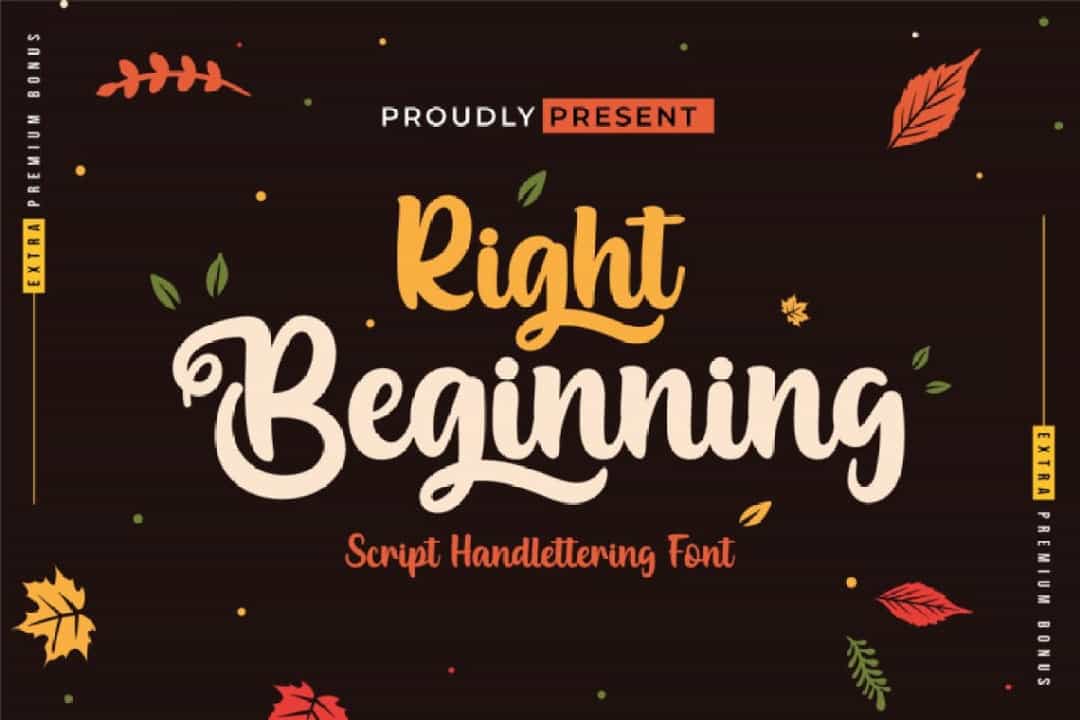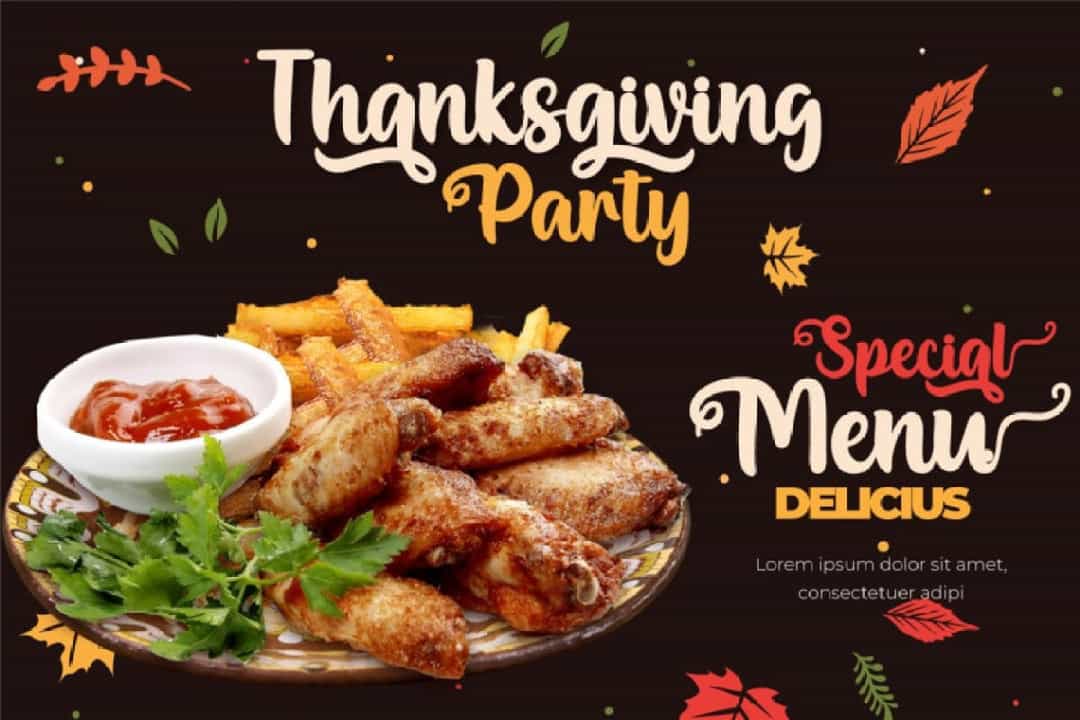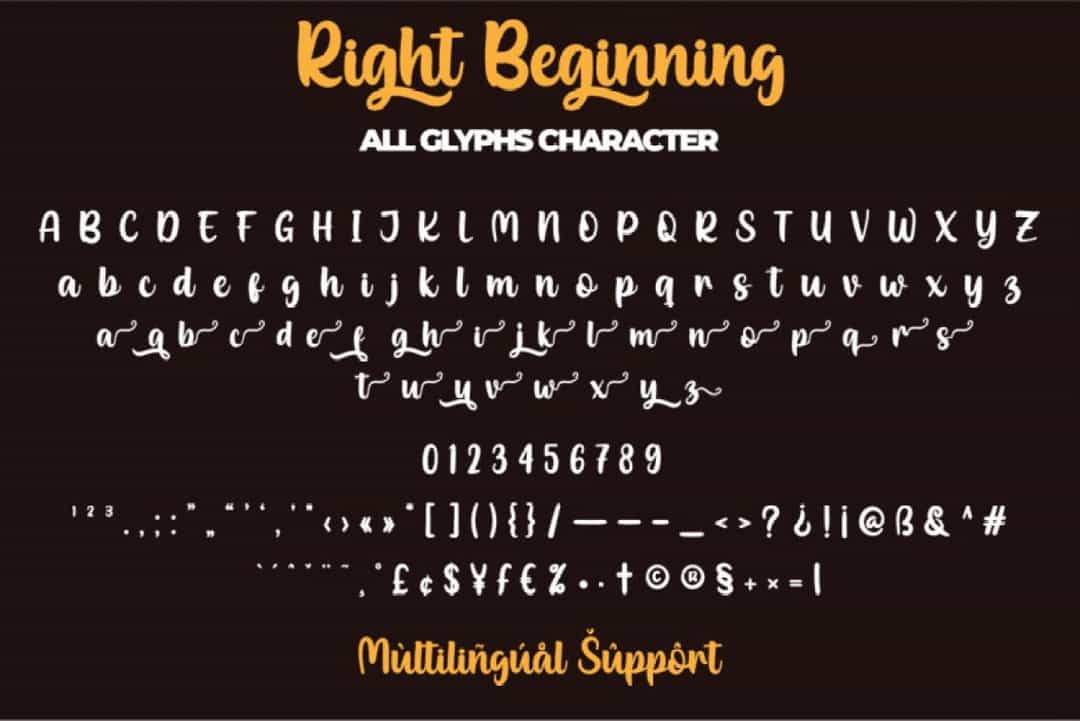
Right Beginning is proud to introduce their brand-new font: Correct Start Font!! To make the font more versatile, Right Beginning comes with several styles of fonts for the lowercase and the uppercase lettering with cute and adorable embellishments. Stylistically, they provide sweet variations of the surnamed script design, and their modern style fits well for Halloween celebrations with the clear Christian motifs.